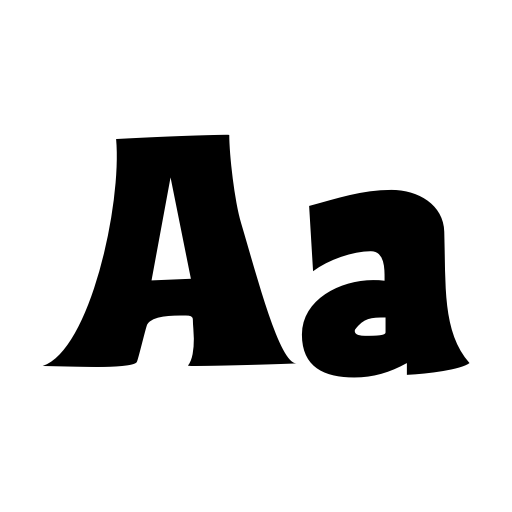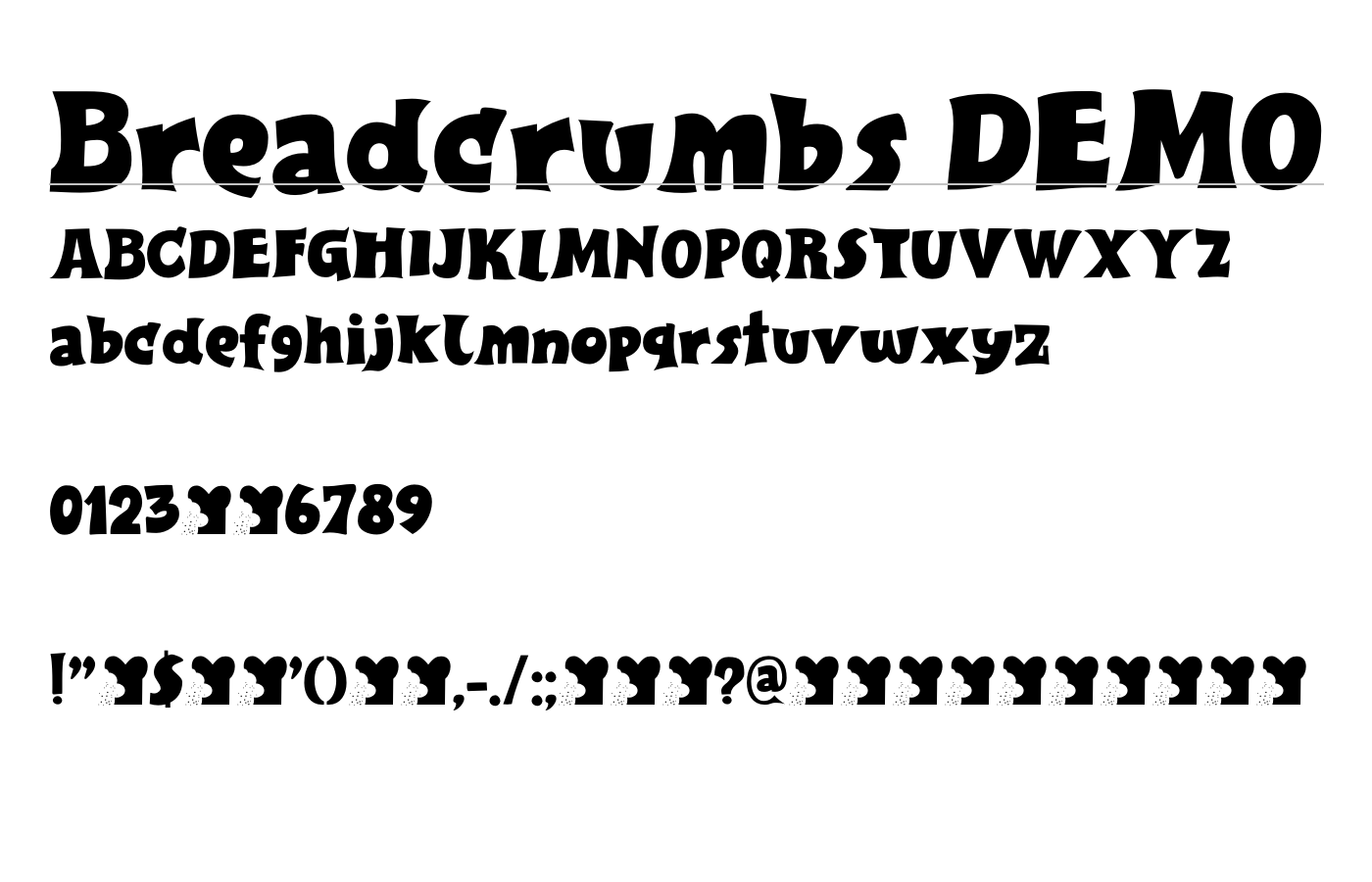
Breadcrumbs DEMO is a bold, playful sans serif font with a strong, chunky presence and slightly irregular letterforms that give it a fun, quirky personality. Its uneven shapes and high contrast strokes make it ideal for eye-catching headlines, logos, and creative projects that want to convey a lively, informal vibe. This font works well in designs aiming for a childlike, whimsical, or friendly tone.
Breadcrumbs DEMO Font
About Breadcrumbs DEMO Font
| Font family | Breadcrumbs DEMO Font |